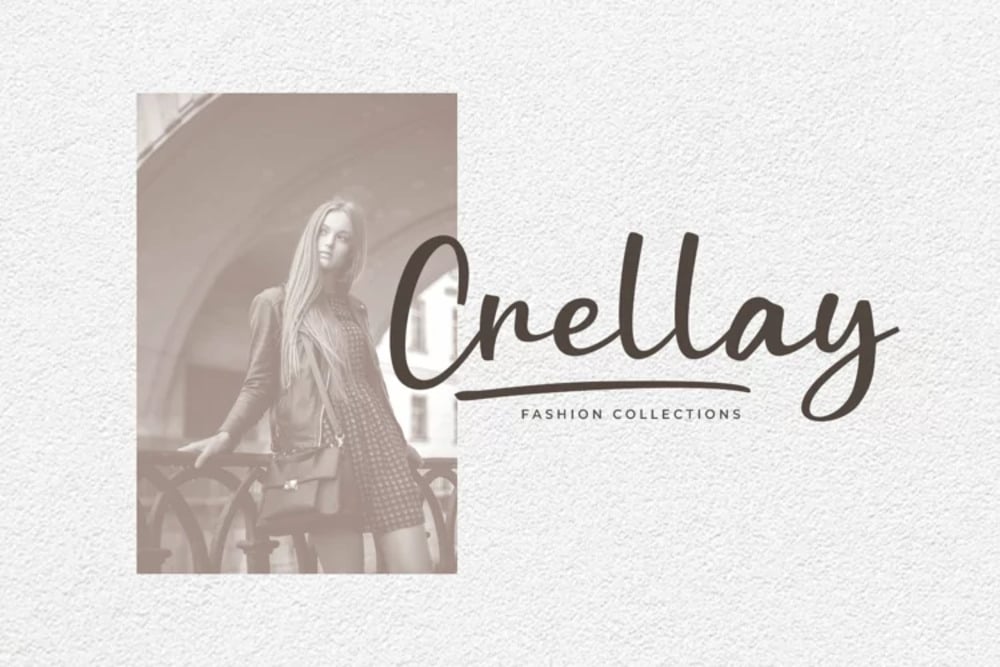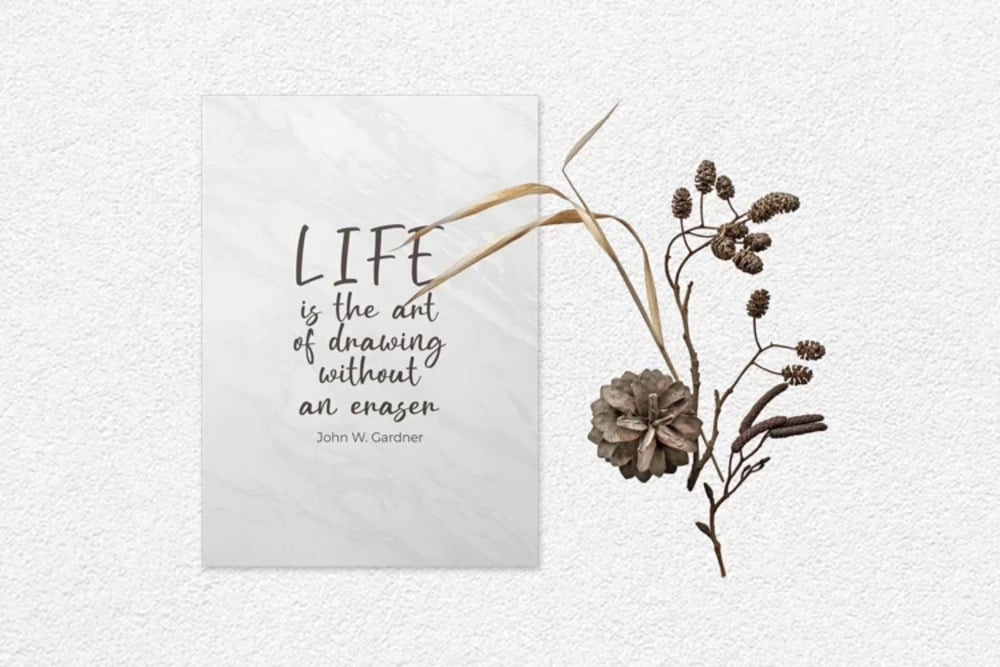
Handfine Font
Handfine is a delicate and elegant script font. Its flowing lines and refined letterforms create a sense of sophistication and grace. Perfect for wedding invitations, branding, or other projects that require a touch of classic beauty, Handfine adds a personal and luxurious feel. It’s ideal for designs seeking an air of timeless elegance.